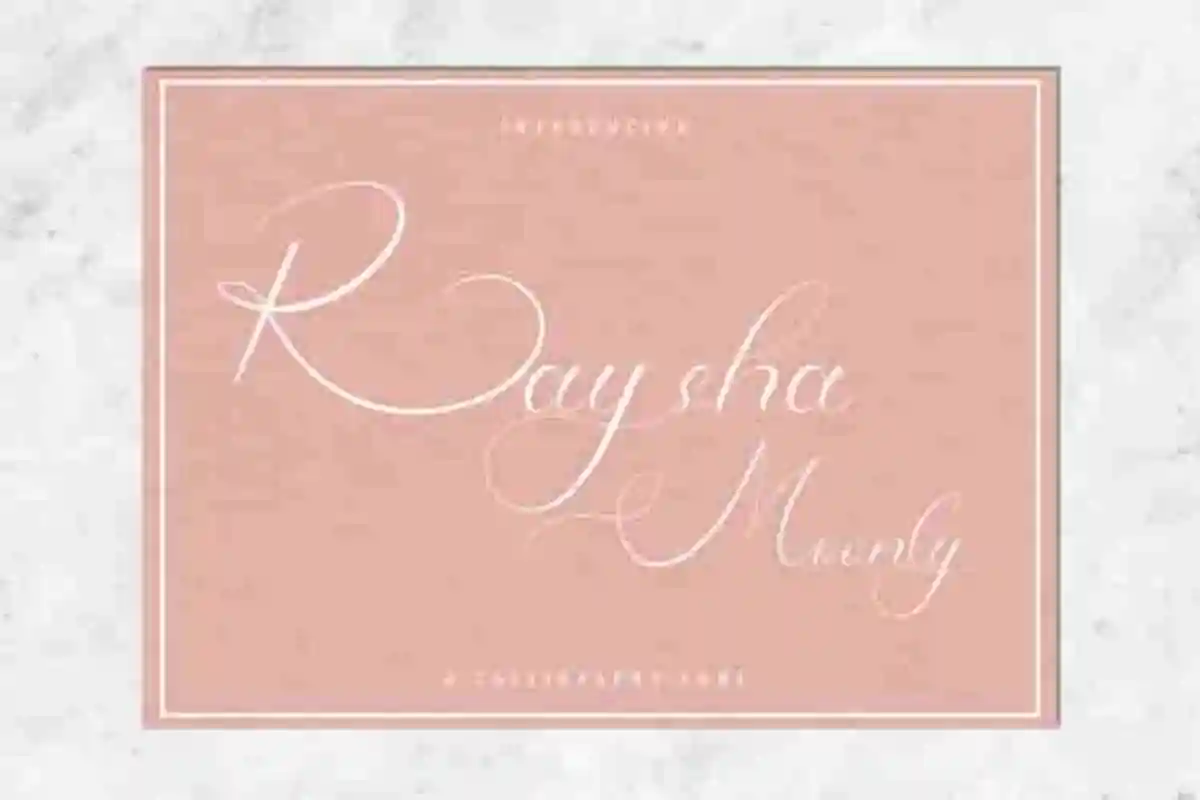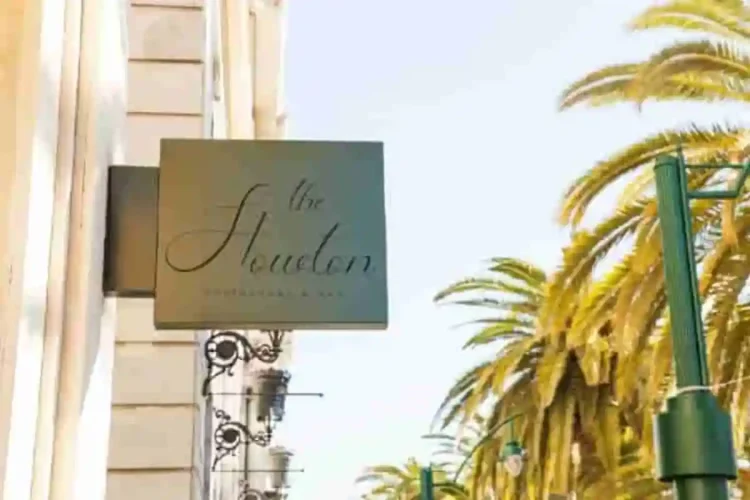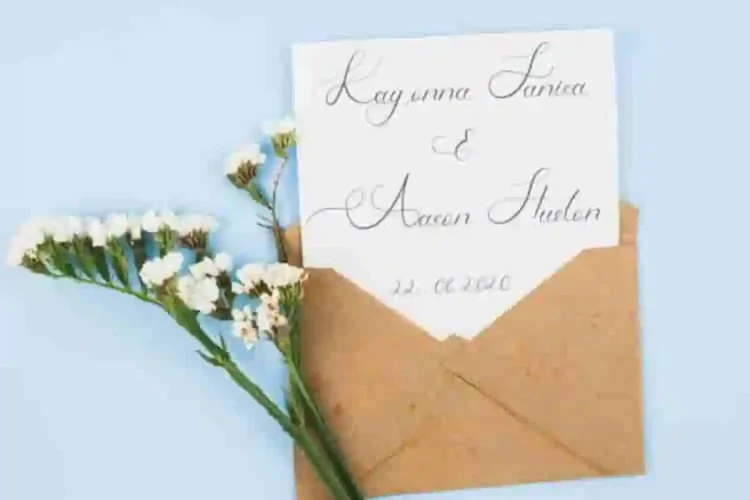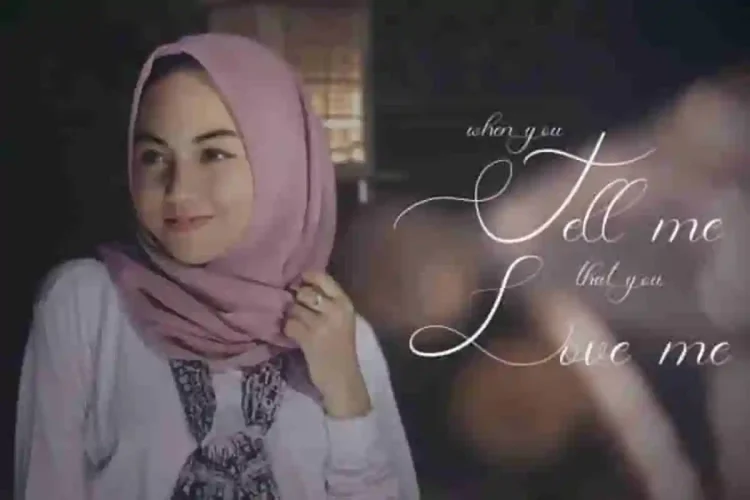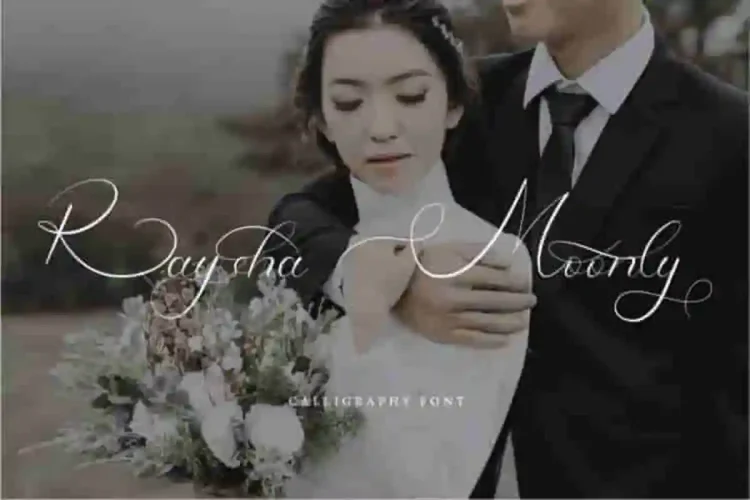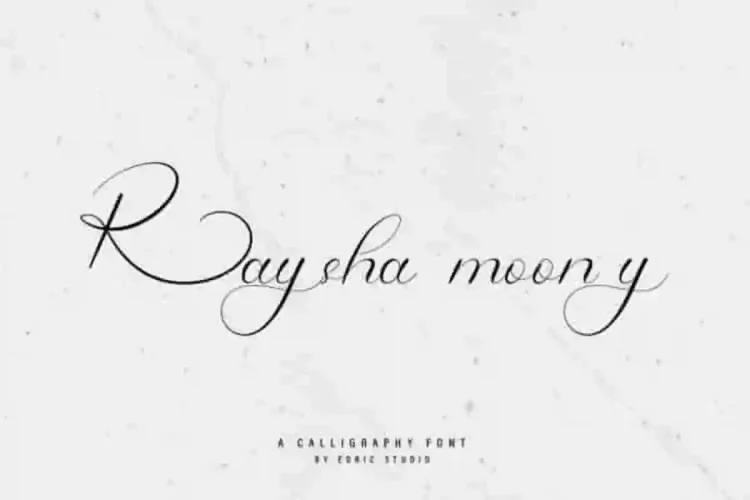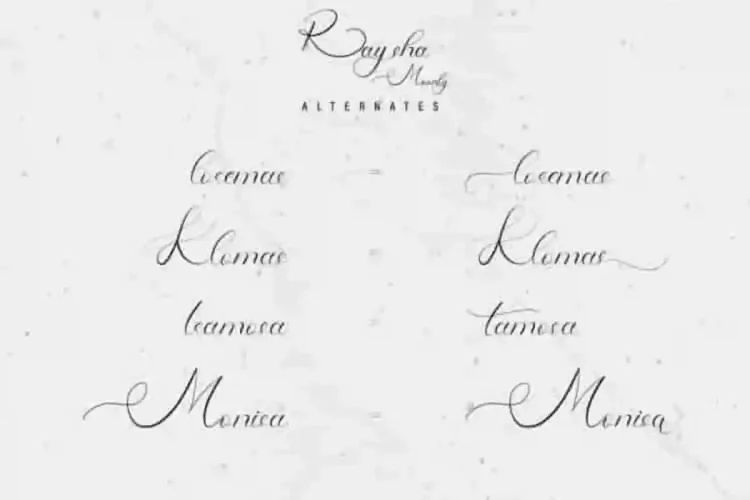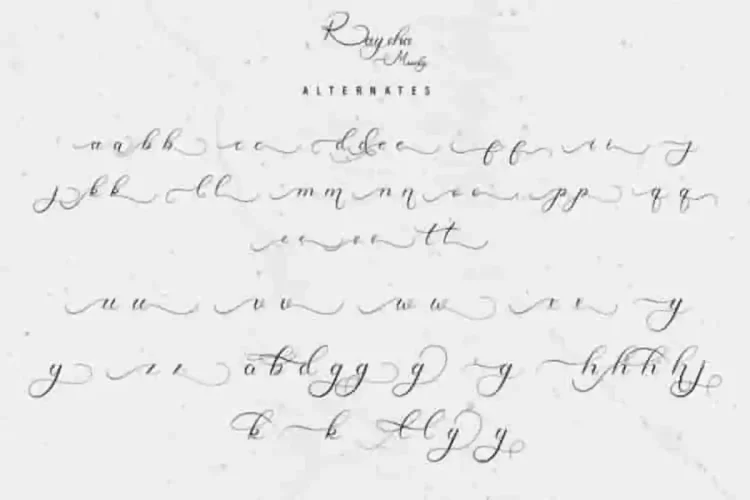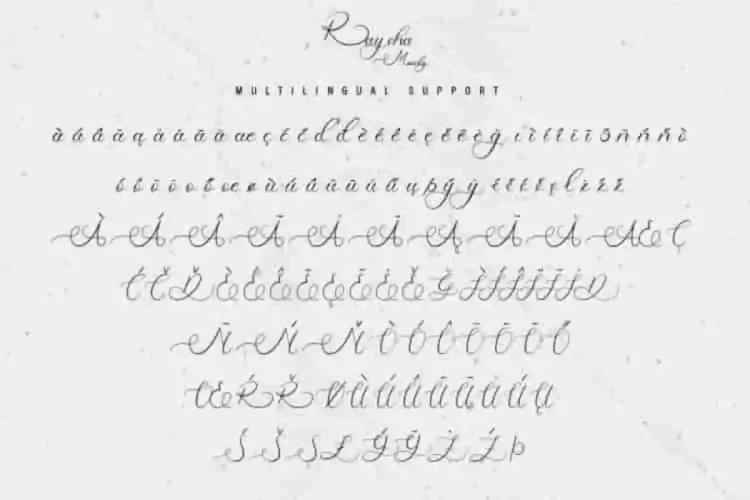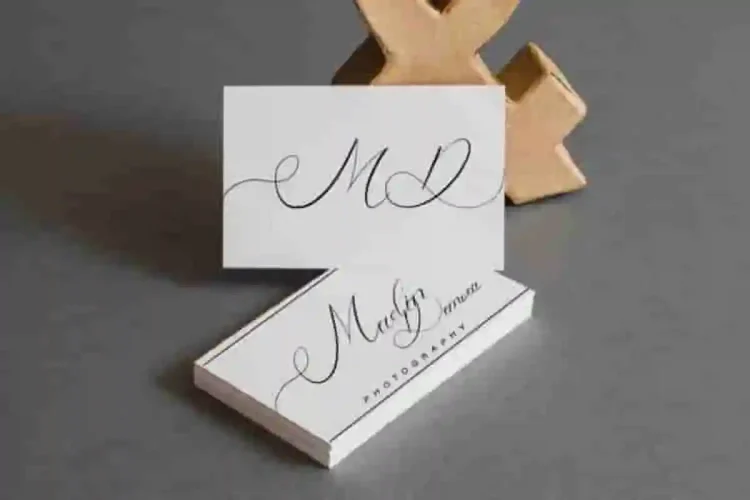
Raysha Moonly Calligraphy Font
Introducing our newest font from our lovely artist : Raysha Moonly Calligraphy Font
This is a Luxurious Calligraphy font, handcrafted from our Studio here in, Indonesia. The artists/designers of this beautiful tyeface is Widiyanti and Suci.
Raysha Moonly Calligraphy Font is an exclusive calligraphy script typeface with glamour style. This font has a stunning characters set, perfectly managed with well spaced and kerning.
Raysha Moonly Calligraphy Font will be great for any projects including : branding, logo, stationery, business card, signage, flyer, brochure etc. Almost all industries will be match for this typeface: wedding, events, real estate, architect, law firm, florist, gardening, makeup artist, travel, hotel, musician etc.
Raysha Moonly Font – Luxurious Wedding Calligraphy Font